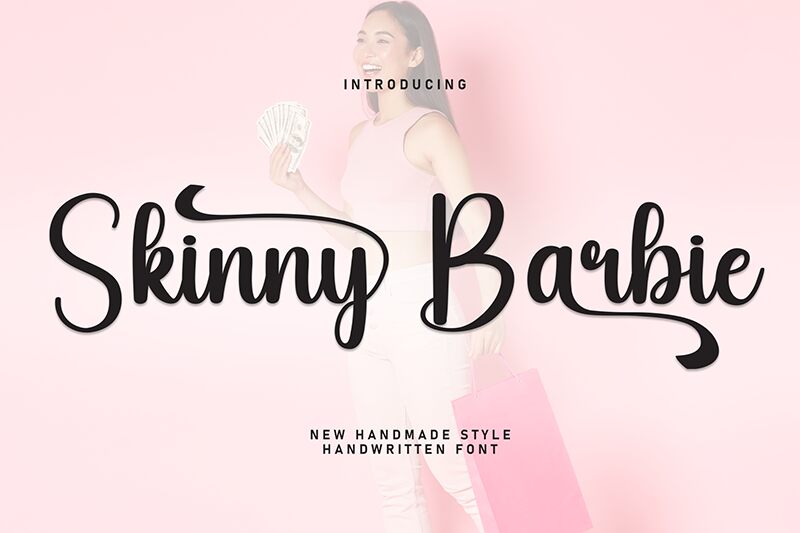
Skinny Barbie
Skinny Barbie font by Scratchones is a free handwritten font with elegant outlines and decorative touch. The script’s graceful and expressive style differs from all other fonts due to its unique appearance and character structure.
The use in branding, packaging design, product labels, book covers, greetings cards, and magazines headlines will have a positive effect on your project. Use it digitally in social media posts or websites where modern looks play big importance.